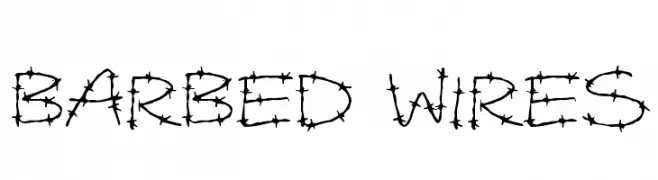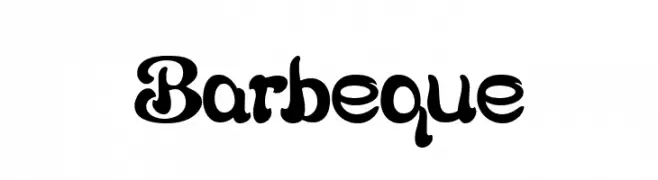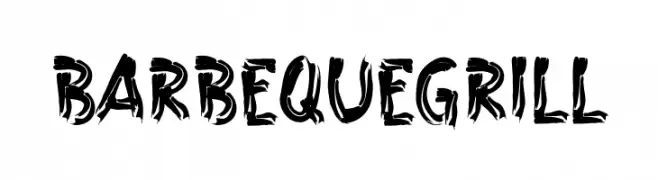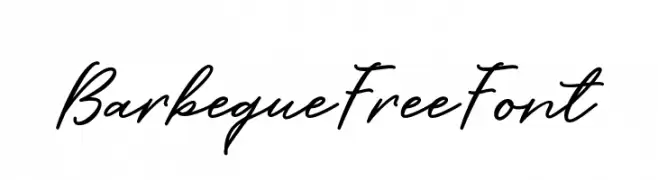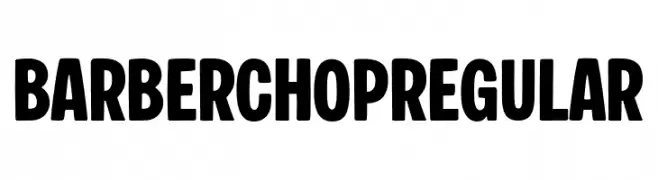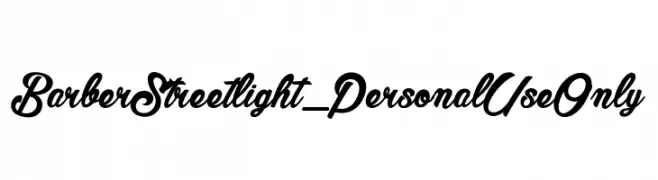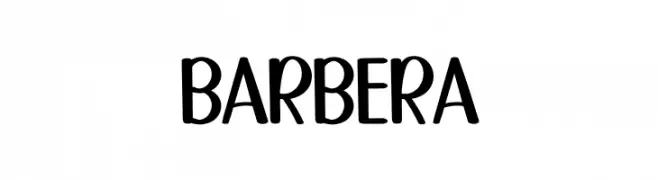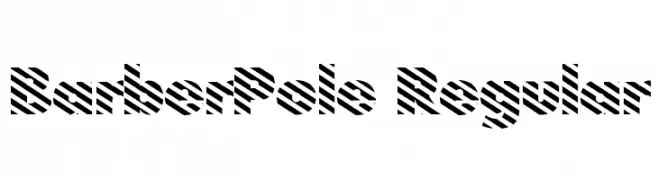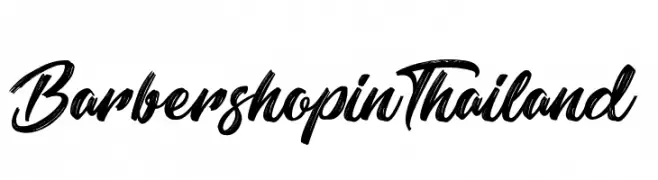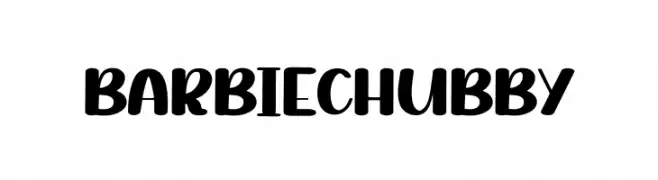
A bold, thorny font with sharp, angular lines and a striking appearance.
A bold, brush-style font with a lively, handcrafted appearance.
A bold, dynamic script font with interconnected, flowing letters and a modern, playful style.
A rugged, barbed wire-inspired font with a bold, industrial look.
A bold, barbed wire-themed decorative font with a rugged, distressed appearance.
A bold, geometric sans-serif font with a modern, industrial style.
A bold, playful font with rounded, whimsical characters.
A bold, brush-textured font with a rugged and dynamic style.
A bold, brush-textured font with dynamic, flame-like strokes.
A bold, flame-inspired decorative font with dynamic, jagged edges.
A bold, playful font with a hand-drawn, marker-like style.
A flowing, cursive script with elegant, sweeping strokes and a handwritten appearance.
A bold, impactful font with thick, uniform strokes and slightly condensed characters.
A bold, distressed font with a vintage, grunge aesthetic.
A bold, elegant script font with flowing, interconnected characters.
A bold, brush-style script font with high contrast and connected characters.
A playful, hand-drawn sans-serif with rounded, informal shapes.
A bold, brush-style font with dynamic strokes and artistic flair.
A geometric, modern font with clean lines and sharp angles.
A modern italic font with clean lines and a subtle slant.
A playful, bold font with rounded edges and whimsical style.
Playful and rounded font with a casual style.
An elegant cursive script font with flowing curves and sophisticated flourishes.
A bold, edgy font with a hand-drawn, grunge-like appearance.
A bold, grunge-style font with a distressed, edgy appearance.
A bold, distressed font with a vintage, hand-printed style.
A modern, geometric sans-serif font with clean lines and uniform strokes.